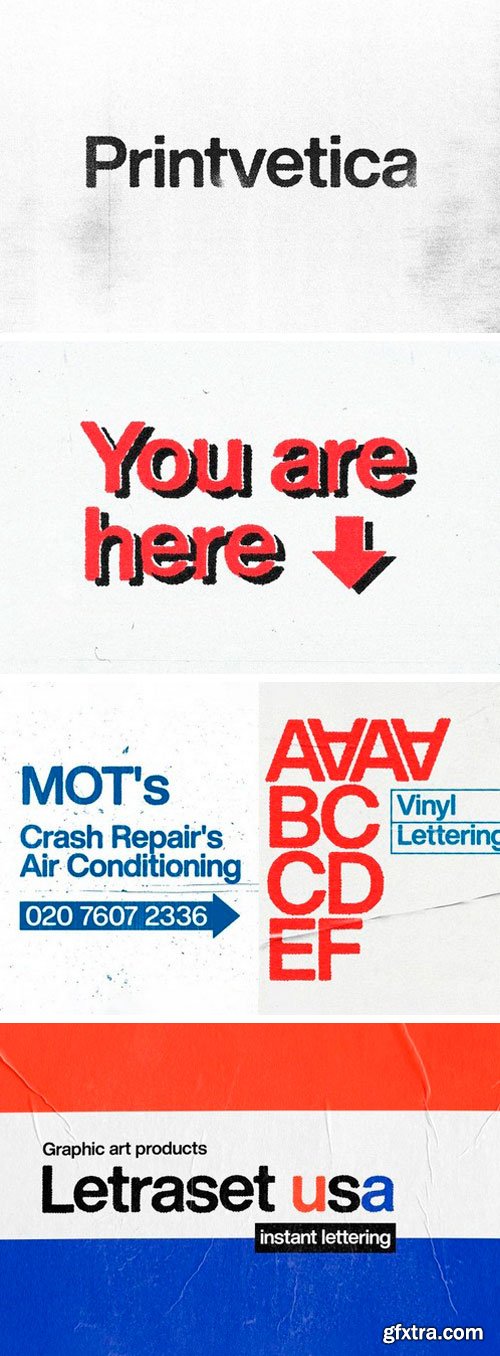
Printvetica Display Font
This is a bold vintage style sans serif font with strong character and soft features. It’s designed and shared by javier guaschetti. A font based on the old Letrasets and posters printed with sans serif typefaces. Designed with love and featuring printed lettering with rough edges, perfect for achieving those vintage/retro designs that we like so much.